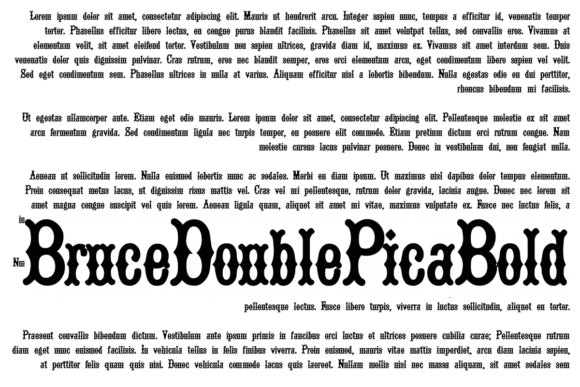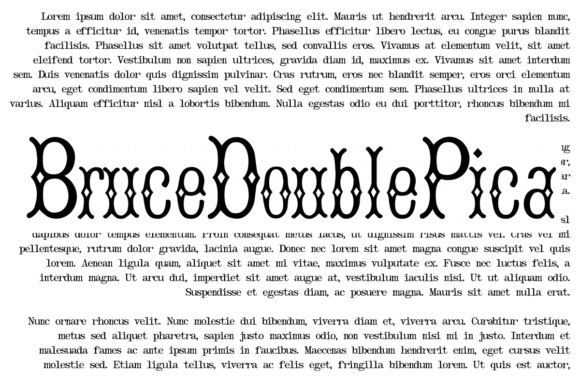
Bruce Double Pica Font: A Timeless Classic for Designers and Crafters
In the world of typography, few fonts have managed to capture the essence of classic design and timeless style like Bruce Double Pica. This vintage-inspired font is a perfect blend of bold, blocky letters and intricate detailing, making it an ideal choice for branding, packaging, and signage projects that require a touch of nostalgia.
The Story Behind Bruce Double Pica
Bruce Double Pica is a font that pays homage to the golden age of typography. Its design is inspired by classic fonts from the early 20th century, with a modern twist that makes it suitable for contemporary design projects. The font’s creator aimed to craft a typeface that would evoke a sense of strength and durability, while also conveying a sense of sophistication and elegance.
Bruce Double Pica is characterized by its bold, blocky letters and intricate detailing. The font features a distinctive double-pica style, with letters that are carefully crafted to create a powerful, attention-grabbing look. The font’s design is perfect for headlines, titles, and short paragraphs of text, making it an excellent choice for designers and crafters looking to add a touch of classic style to their projects.
Perfect for Branding, Packaging, and Signage
Bruce Double Pica is an excellent choice for branding, packaging, and signage projects that require a touch of nostalgia. The font’s vintage-inspired design makes it perfect for:
- Branding: Create a lasting impression with Bruce Double Pica’s bold, attention-grabbing design. Use it for logos, business cards, and letterheads to add a touch of classic style to your brand.
- Packaging: Add a touch of nostalgia to your packaging with Bruce Double Pica. The font’s vintage-inspired design makes it perfect for labels, tags, and other packaging materials.
- Signage: Create eye-catching signage with Bruce Double Pica’s bold, blocky letters. The font’s design is perfect for billboards, posters, and other signage projects that require a touch of classic style.
Why Choose Bruce Double Pica?
So, why choose Bruce Double Pica for your design projects? Here are just a few reasons:
- Timeless style: Bruce Double Pica’s vintage-inspired design ensures that your projects will never go out of style.
- Attention-grabbing: The font’s bold, blocky letters and intricate detailing create a powerful, attention-grabbing look that exudes strength and durability.
- Versatile: Bruce Double Pica is perfect for a wide range of design projects, from branding and packaging to signage and advertising.
Tips for Using Bruce Double Pica
Here are a few tips for using Bruce Double Pica in your design projects:
- Use it sparingly: Bruce Double Pica is a bold font, so use it sparingly to avoid overwhelming your design.
- Pair it with a sans-serif font: Pair Bruce Double Pica with a sans-serif font to create a striking contrast that adds visual interest to your design.
- Experiment with colors: Bruce Double Pica looks great in a range of colors, so experiment with different hues to find the perfect look for your project.
Bruce Double Pica is a font that celebrates classic design and timeless style. Its vintage-inspired design makes it perfect for branding, packaging, and signage projects that require a touch of nostalgia. With its bold, blocky letters and intricate detailing, Bruce Double Pica is sure to make a lasting impression. Whether you’re a designer or crafter, this font is an excellent choice for adding a touch of classic style to your projects.